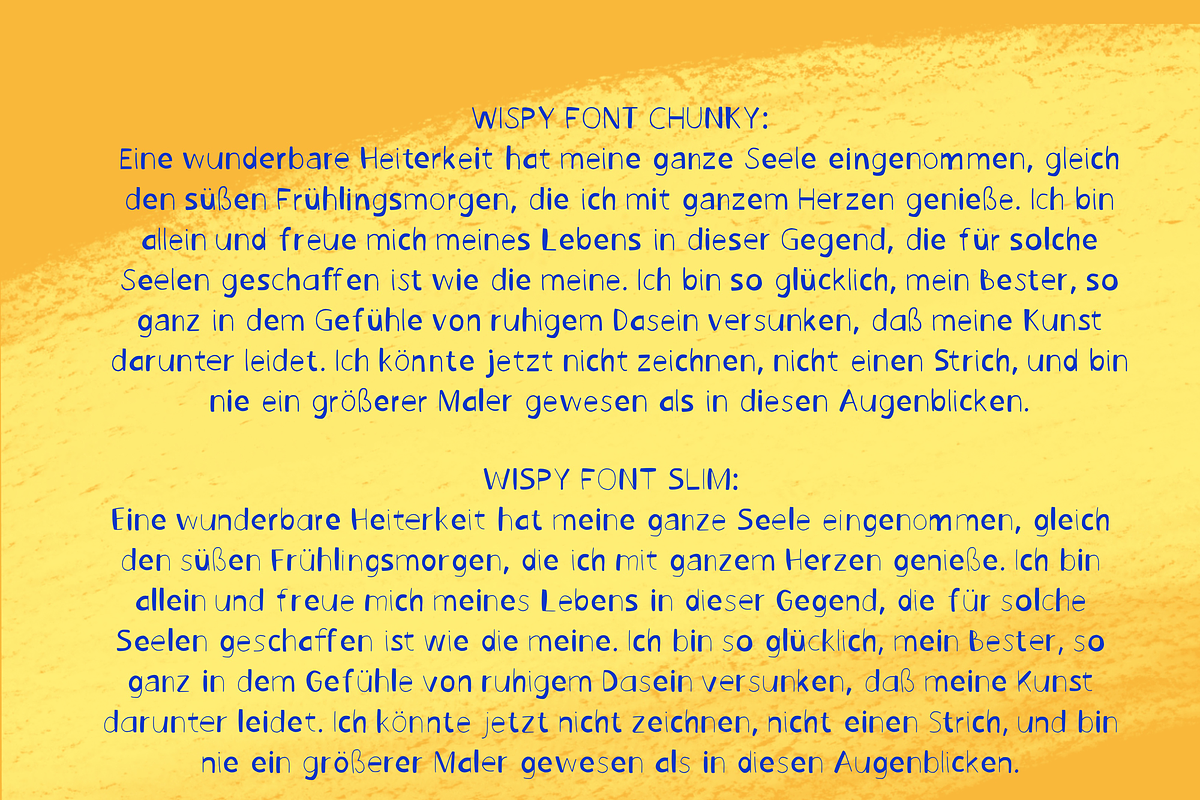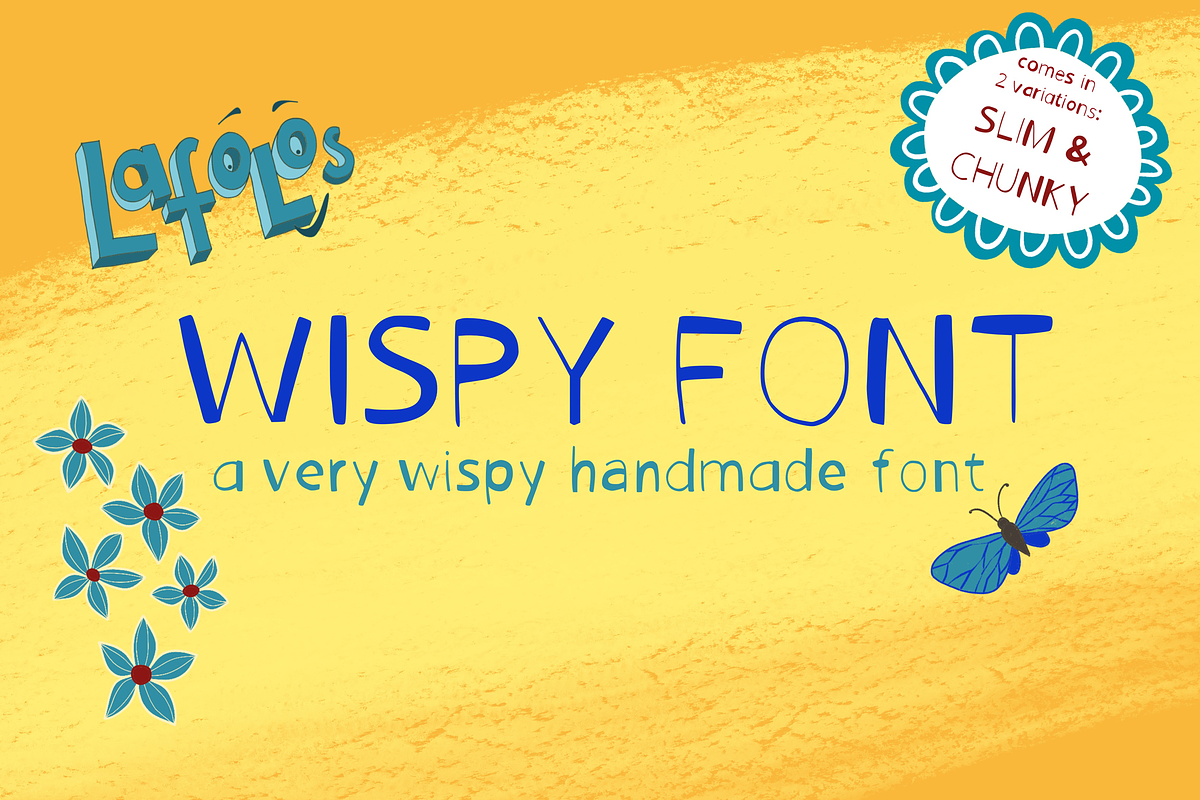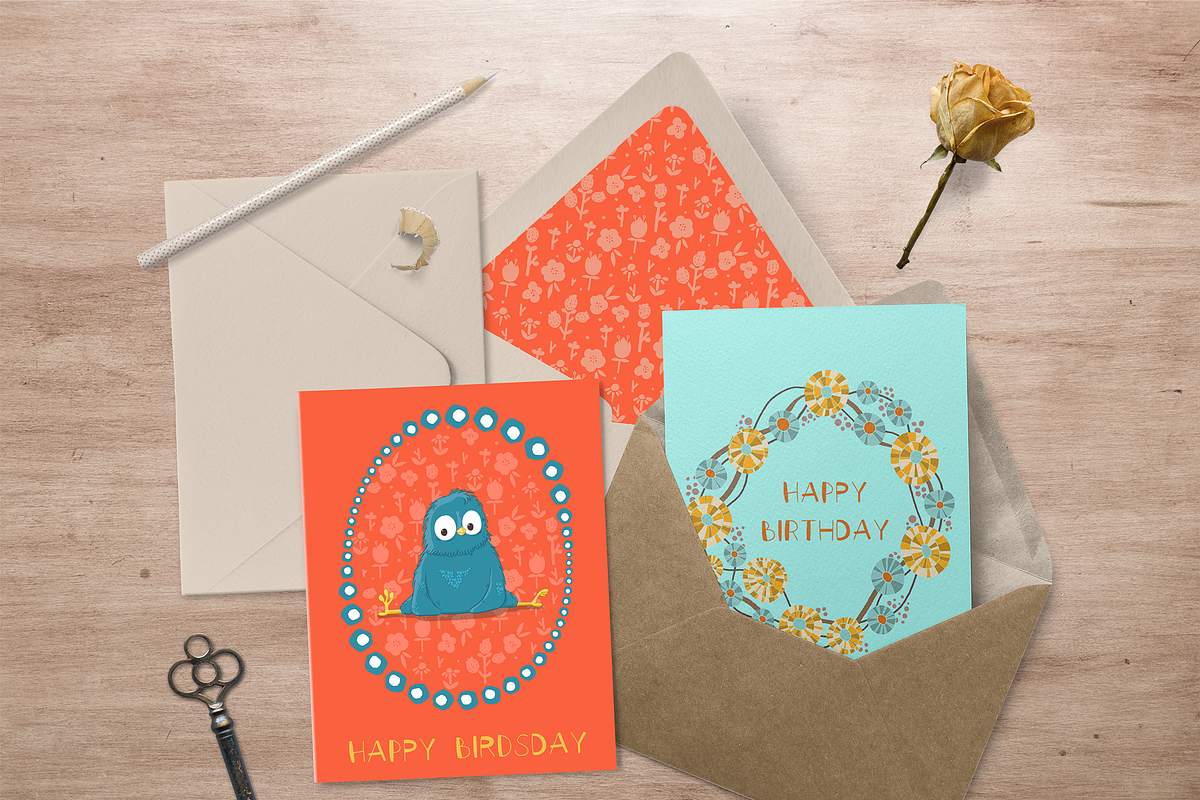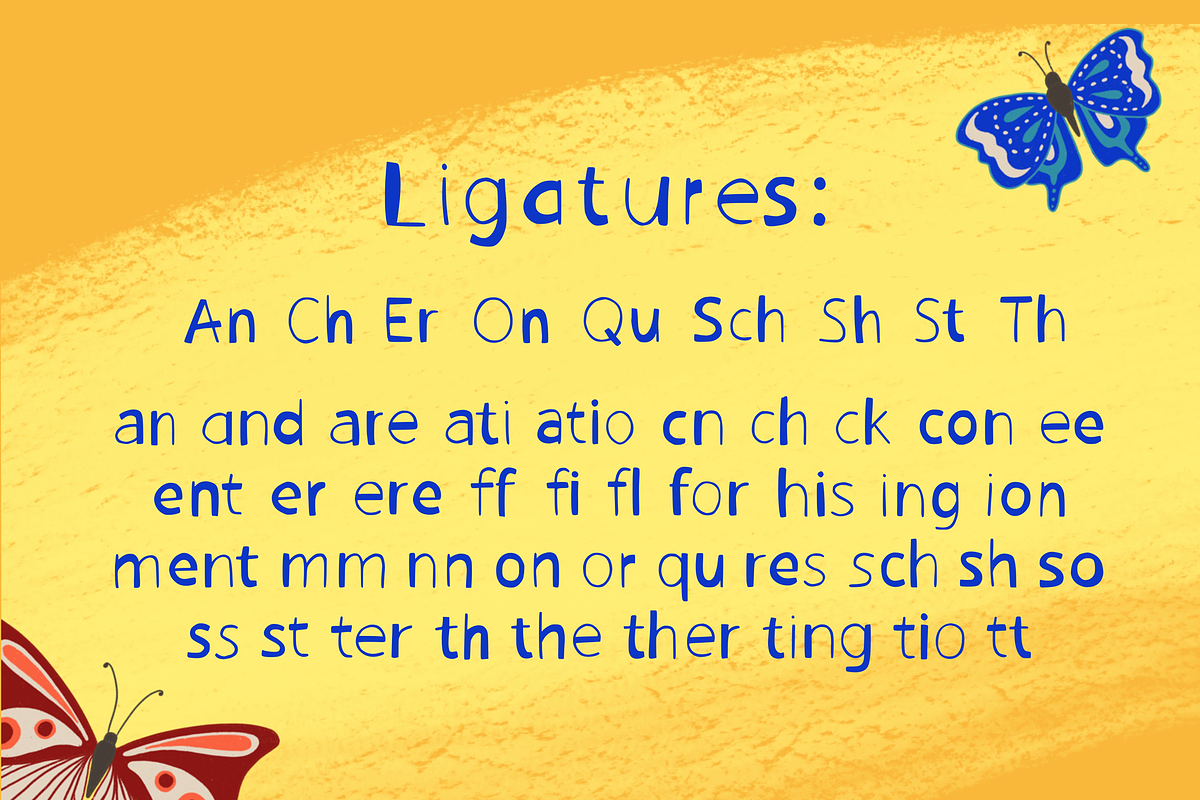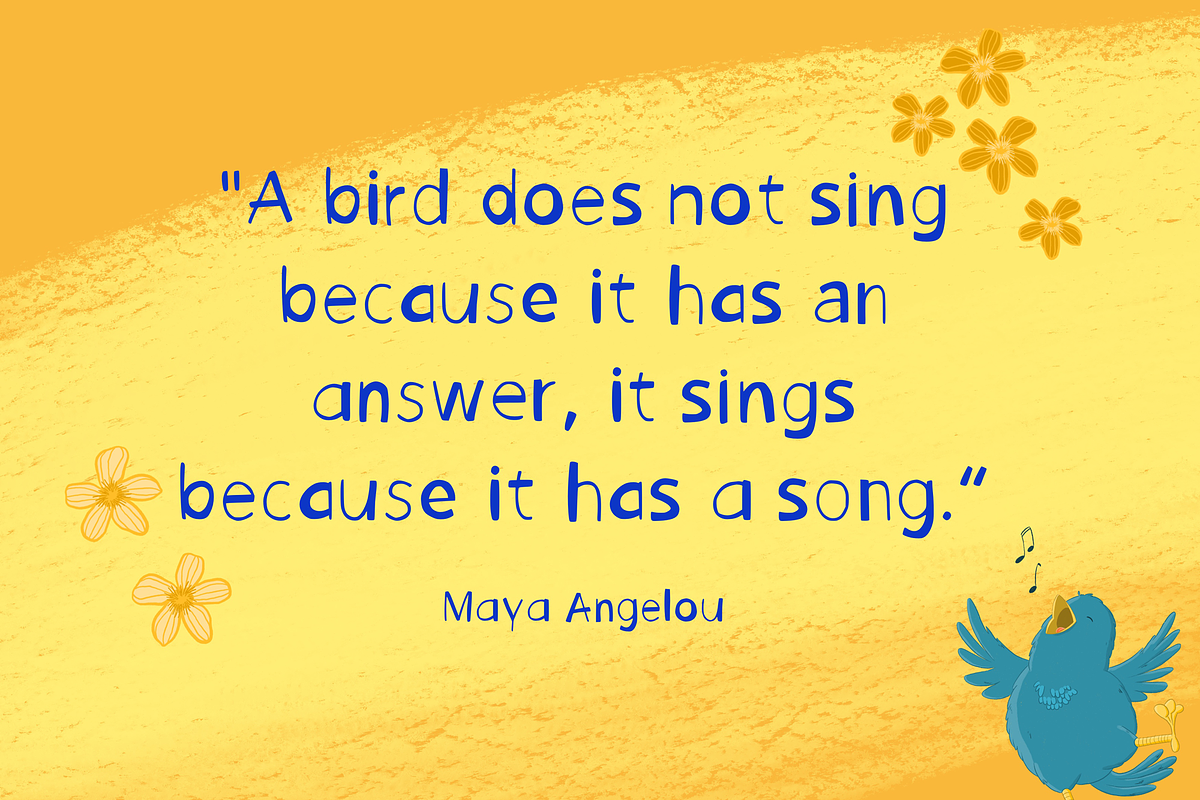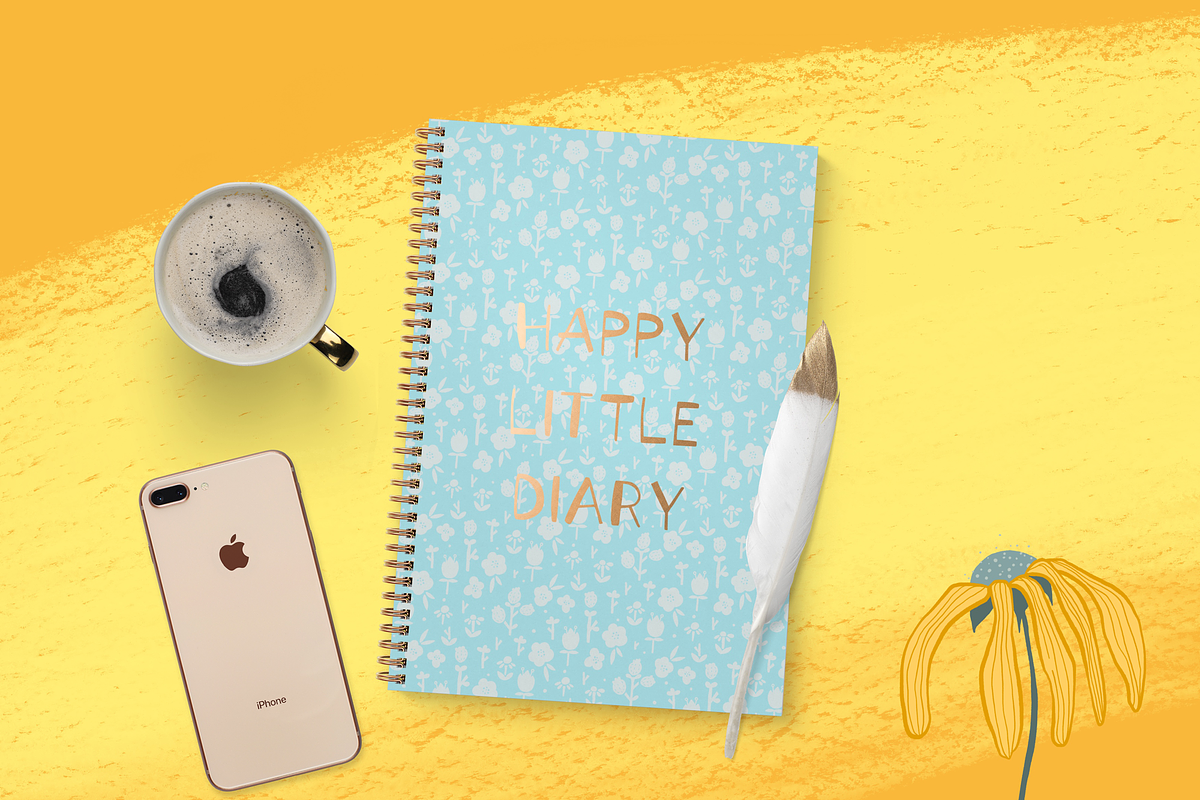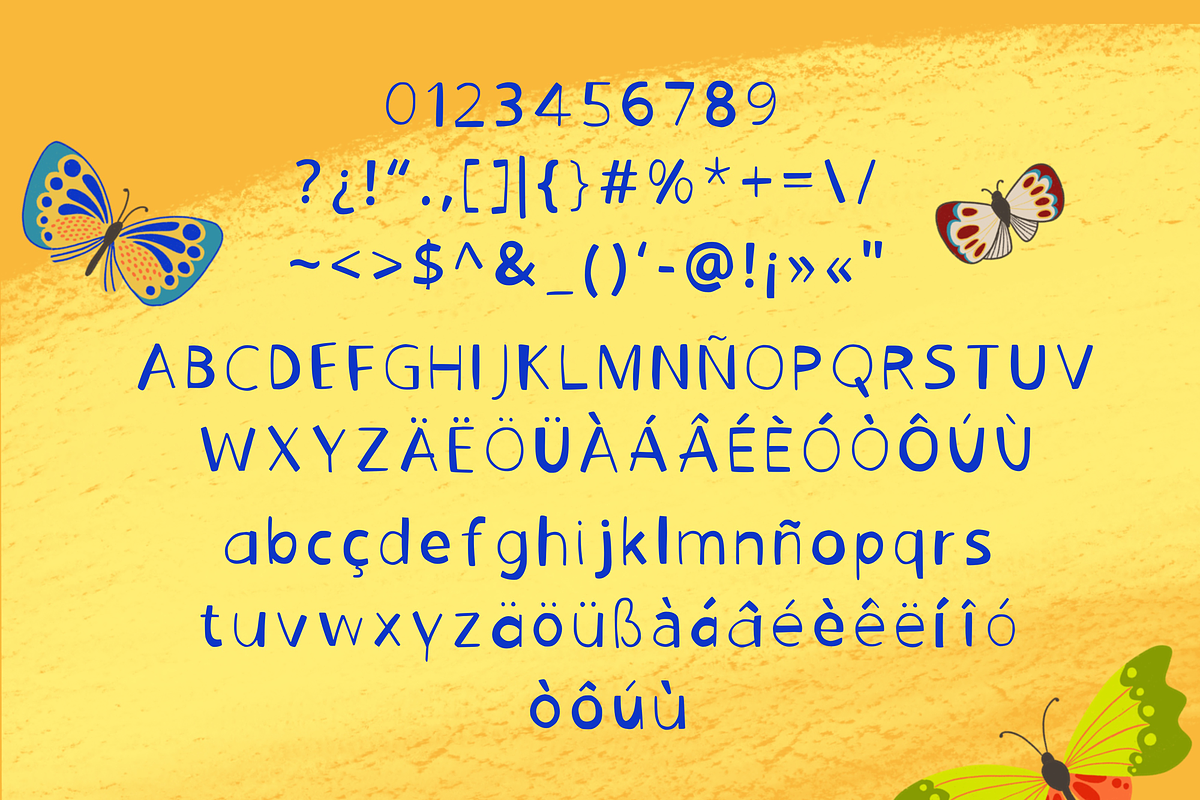
LAFOLOs Wispy Font
Lafolo´ s Wispy Font - a quirky hand drawn font for headlines, package, branding and more.
The font comes in two variations:
SLIM for headlines, with elegant wispy limbs CHUNKY for longer texts, with slightly thicker limbs. The difference is small but the legibility is slightly better when used in low contrast settings.
Every letter and the ligatures are drawn in the alternate variations to add variety to your type face.